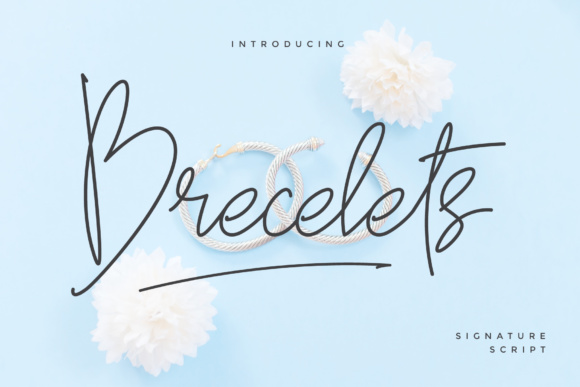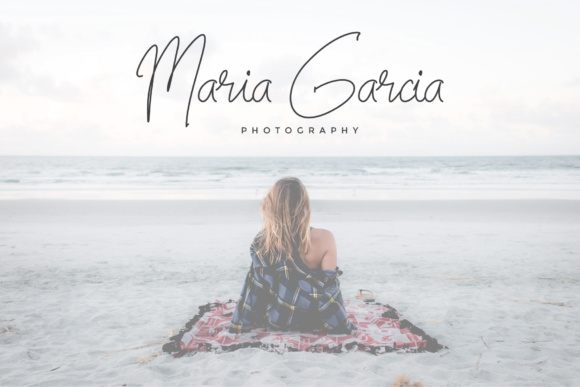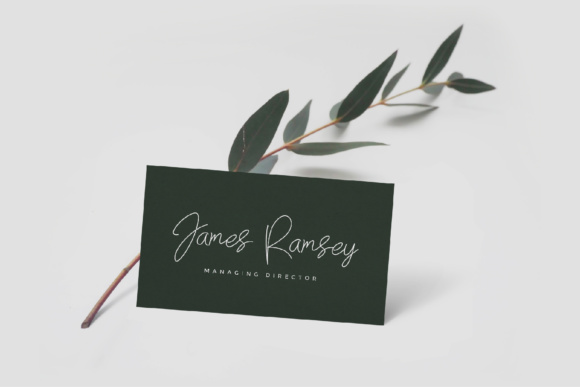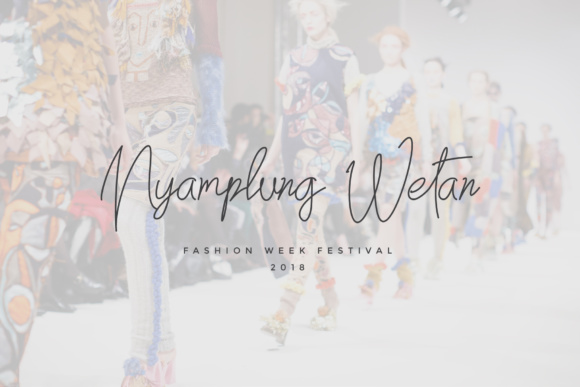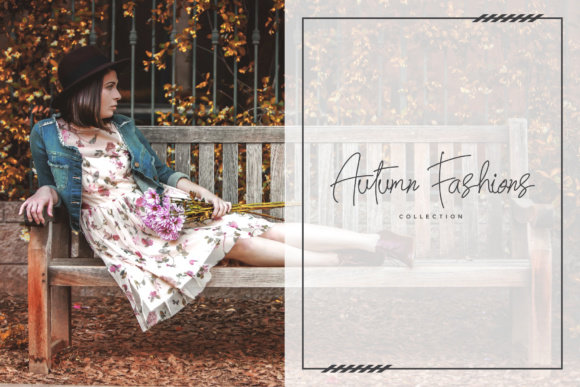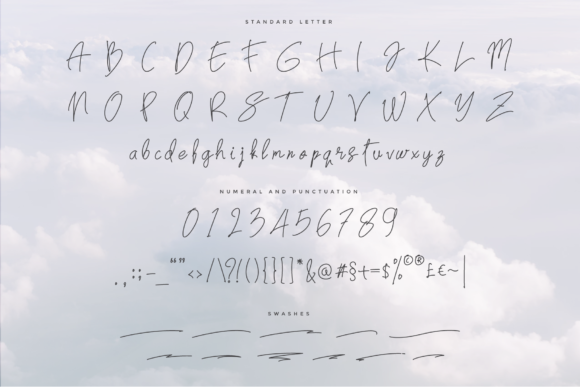
Brecelets Font
About Brecelets Font
The Brecelets is a beautiful signature script font. It’s allowing you to create beautiful handmade typography in an instant.